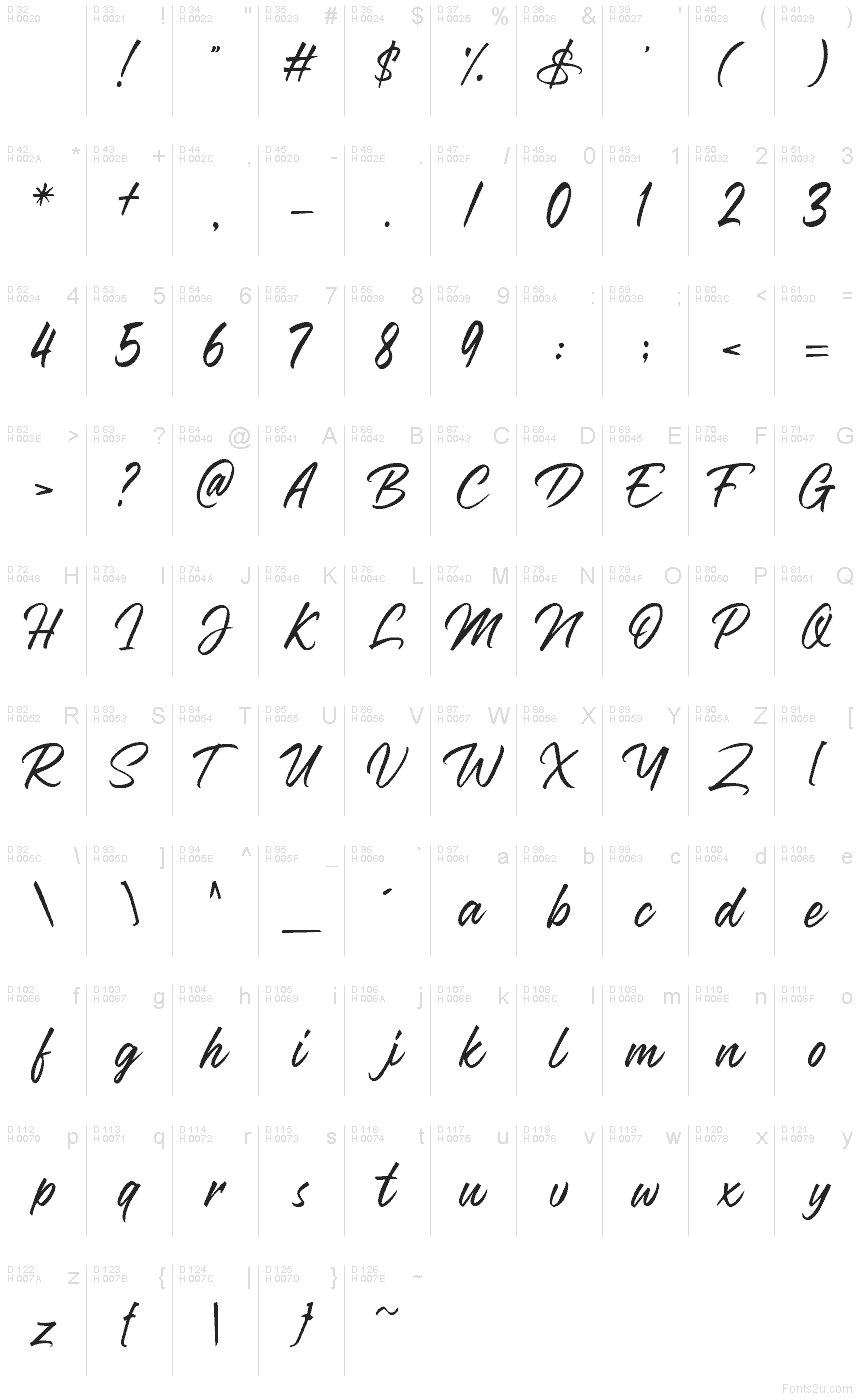
Silent Forest
Silent Forest font by BlackFridayFont FMF is a free handwritten typeface that finally gets the sweet spot between elegance and easy reading. Its smooth, brushy strokes carry a gentle slant, with subtle tapering that adds grace without turning fussy. Letters connect cleanly and keep a steady rhythm, so headlines feel fluid while still snapping into focus at a glance.
Using Silent Forest, your words feel personal yet polished—great for wedding invitations, boutique logos, product packaging, café menus, event posters, and social quotes. The lively flow adds warmth, while the spacing stays calm, making it shine on both print and screens. Pair this free font with a crisp geometric sans for details, and give it a touch more size or line spacing to let the curves breathe.